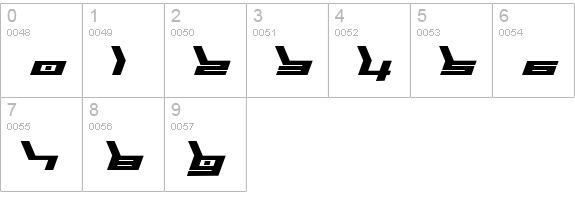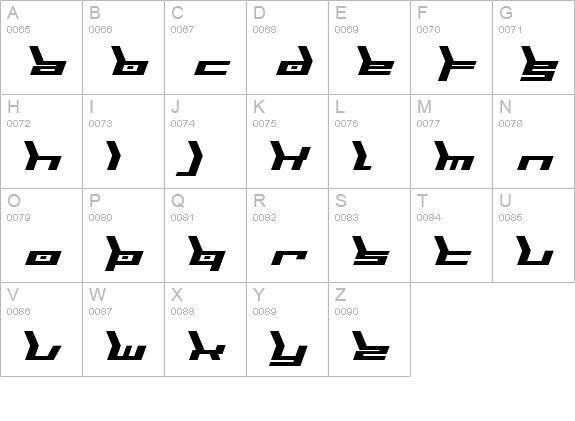
Biomechanic Font Details
Biomechanic font is a futuristic and edgy typeface that exudes a sense of strength and innovation. Its sleek and angular design gives it a modern and bold look, making it perfect for projects that require a cutting-edge aesthetic. The sharp lines and geometric shapes of Biomechanic font convey a sense of precision and technology, making it ideal for sci-fi, gaming, and tech-related designs. One of the best things about Biomechanic font is that it is available for free download at FontsMarket.com. This means you can easily access this unique and eye-catching font to enhance your creative projects without any cost. Don't miss the opportunity to add a touch of futuristic flair to your designs with the freely available Biomechanic font.